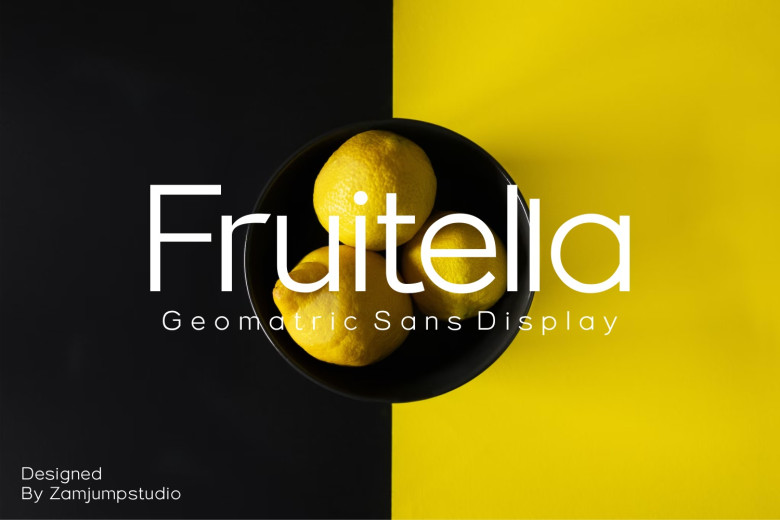
Fruitella Font
Fruitella can be described as an abstract sans serif font design created using opentype technology with emphasis placed on. Equipped with different ligature standards than are typically employed. Fruitella is ideal for graphic design or any display needs such as signage systems, corporate websites or editorial design projects.
Fruitella Sans Serif Font